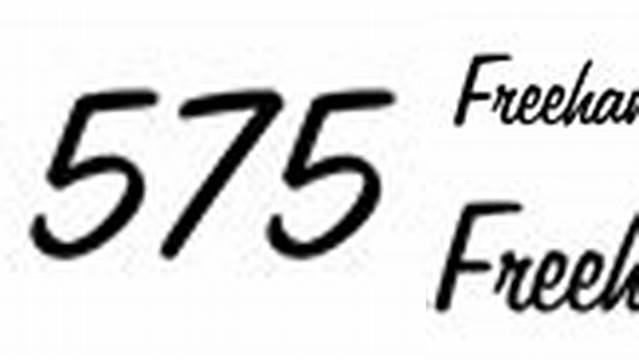
Hey design enthusiasts and font lovers! Today, we're diving deep into the world of Freehand 575 Std Regular, a font that brings a unique blend of casual elegance and professional polish to your projects. If you're on the hunt for a typeface that feels both handwritten and perfectly readable, you've come to the right place. This article is your ultimate guide to understanding, appreciating, and freehand 575 std regular font free download options, ensuring you can seamlessly integrate this versatile font into your creative toolkit.
Understanding the Appeal of Freehand 575 Std Regular
The allure of the Freehand 575 Std Regular font lies in its distinctive character. It's not just another digital font; it’s designed to mimic the fluid, organic strokes of handwriting, offering a personal touch that’s often missing in more rigid typefaces. This makes it incredibly effective for a wide range of applications, from branding and marketing materials to personal invitations and digital artwork. The 'Std' in its name typically refers to 'Standard', indicating a widely available and compatible version of the font, making it accessible for most users. The 'Regular' weight provides a balanced appearance, suitable for both headlines and body text, though its true strength shines when used for emphasis or to add a distinct personality to your designs. When you're looking for that perfect blend of approachability and sophistication, Freehand 575 Std Regular often hits the sweet spot. Its slightly irregular baseline and varied stroke widths give it an authentic, hand-drawn feel without sacrificing legibility. This is crucial, guys, because a font needs to look good and be easy to read. We'll explore how this font can elevate your designs and where you can find legitimate sources for your freehand 575 std regular font free download.
Exploring the Design Philosophy Behind Freehand 575 Std Regular
Every great font has a story, and the Freehand 575 Std Regular font is no exception. Its design philosophy seems rooted in capturing the spontaneity and warmth of human expression. Unlike sterile, geometric sans-serifs or overly ornate scripts, Freehand 575 Std Regular strikes a beautiful balance. It’s as if a skilled calligrapher took their time, not for perfect uniformity, but for expressive consistency. The subtle variations in stroke thickness, the gentle curves, and the slightly unpredictable angles all contribute to its handcrafted aesthetic. This intentional imperfection is what makes it feel so alive and engaging. For designers working on projects that require a personal, approachable vibe – think artisanal brands, wedding invitations, or children's books – this font is a goldmine. It communicates warmth, creativity, and a human element that resonates deeply with audiences. The designers likely aimed to create something that feels familiar yet unique, a typeface that could be used in a professional context without feeling cold or corporate. The ‘Std’ designation often implies adherence to certain typographic standards, ensuring better compatibility and rendering across different platforms and software. This means you can rely on its performance, whether you’re working in Adobe Photoshop, Illustrator, or even a simple word processor. When you’re searching for that perfect stylistic flourish, considering the underlying design principles of a font like Freehand 575 Std Regular can help you make the best choice for your specific needs. It’s about more than just aesthetics; it’s about conveying a message and an emotion through typography. This font is a testament to how thoughtful design can imbue digital characters with personality and soul. The focus is on achieving a look that is both distinctive and functional, a tricky balance that Freehand 575 Std Regular manages with aplomb, making it a valuable asset for anyone looking to add a touch of unique flair to their work. The essence of its appeal lies in this successful fusion of organic hand-drawn qualities with the reliability of a standard digital font, offering a creative solution that doesn't compromise on usability or aesthetic impact. The intentional quirks in its letterforms are precisely what give it character, preventing it from becoming just another generic typeface in a crowded digital landscape. It offers a nuanced expression that can elevate a design from ordinary to extraordinary, making it a go-to choice for many creative professionals seeking that special something.
The Versatility of Freehand 575 Std Regular in Design Projects
One of the most compelling aspects of the Freehand 575 Std Regular font is its sheer versatility. It’s not a font that confines itself to a single niche; rather, it adapts beautifully to a wide array of design scenarios. Are you designing a logo for a cozy coffee shop? Freehand 575 Std Regular can lend an inviting, artisanal feel. Need to create eye-catching headlines for a lifestyle blog? Its distinctive character will grab attention. Planning a wedding invitation suite that exudes romance and personal touch? This font is practically perfect. Even in more corporate settings, a judicious use of Freehand 575 Std Regular for specific call-outs or accents can inject a much-needed dose of personality and break the monotony of standard sans-serifs. Its readability in the regular weight makes it surprisingly suitable for shorter blocks of text, especially when aiming for a friendly, approachable tone. Think about packaging for handmade goods, event posters, or even short marketing copy where you want to connect with your audience on a more human level. The freehand 575 std regular font free download trend further amplifies its accessibility, allowing students, hobbyists, and small businesses to experiment with professional-grade typography without a hefty price tag. This democratization of design tools is fantastic, guys! It empowers more people to create visually appealing content. The subtle quirks of the font – the slight variations in baseline, the gentle swell in some strokes – prevent it from feeling sterile. It retains a handcrafted authenticity that’s highly sought after in today's design landscape, where brands are increasingly striving for genuine connection. Whether you're designing for print or digital media, Freehand 575 Std Regular offers a reliable and aesthetically pleasing option. Its ability to bridge the gap between casual handwriting and professional typography makes it a true workhorse font, capable of adding character and impact across diverse projects. It’s the kind of font that doesn’t just fill space; it actively contributes to the overall message and mood of your design, making it a powerful tool in any designer’s arsenal. The adaptability ensures that your creative vision remains consistent, regardless of the platform or medium. It's a font that works hard so your message can shine through with clarity and charm. This makes the freehand 575 std regular font free download an attractive proposition for anyone looking to enhance their design repertoire with a typeface that’s both stylish and functional, offering excellent value and creative potential without breaking the bank. It’s about making sophisticated design accessible and empowering users to achieve professional results with ease. The font's inherent charm and readability ensure it performs well in numerous contexts, solidifying its status as a highly valuable asset for designers and creatives across various industries. It provides a unique stylistic signature that can help a brand or project stand out from the crowd, offering a distinct visual identity that is both memorable and engaging.
Incorporating Freehand 575 Std Regular into Your Designs
Once you've successfully acquired your Freehand 575 Std Regular font, the real fun begins: integrating it into your design projects! This font's unique character makes it stand out, but using it effectively requires a bit of thought. Start by considering where its strengths lie. As mentioned, it excels in adding personality and a human touch. Use it for headlines, subheadings, pull quotes, or short, impactful statements where you want to convey warmth, creativity, or a sense of craft. For body text, the regular weight is generally readable, but for longer passages, you might find a more conventional sans-serif or serif font easier on the eyes. Experiment with pairing Freehand 575 Std Regular with other typefaces. A clean, minimalist sans-serif can provide a nice contrast, grounding the font's expressive nature. Alternatively, pairing it with a classic serif font can create a sophisticated yet approachable feel. Think about the overall mood you want to achieve. If your project demands a friendly, informal vibe, lean into Freehand 575 Std Regular. If it needs to feel more formal, use it sparingly as an accent. Don't be afraid to play with sizing and color. Larger sizes will emphasize its unique letterforms, while careful color choices can enhance its readability and aesthetic appeal. Remember that consistency is key, especially in branding. Once you decide on how to use Freehand 575 Std Regular, stick to it across your various materials. The goal is to make your designs not just look good, but also communicate effectively. The freehand 575 std regular font free download gives you the freedom to experiment, so dive in and see what amazing things you can create! The font’s subtle irregularities are its superpower; they give text life and prevent it from feeling like generic digital output. Use this to your advantage to create designs that feel authentic and engaging. It’s about leveraging its handcrafted feel to build a stronger connection with your audience, making your message more memorable and impactful. The key is thoughtful application, ensuring the font serves the overall design goal rather than overpowering it. Master this balance, and Freehand 575 Std Regular becomes an indispensable part of your creative arsenal.
Typography Pairing Strategies with Freehand 575 Std Regular
Pairing fonts can be tricky, guys, but it's where the magic happens! When working with Freehand 575 Std Regular, your goal is usually to complement its distinctive, slightly irregular style without overwhelming it or creating a visual clash. A great strategy is to pair it with a clean, neutral sans-serif font. Think of fonts like Open Sans, Lato, or Montserrat. These provide a stable, readable base for body text or secondary information, allowing Freehand 575 Std Regular to shine in headlines or key phrases. The contrast between the expressive, hand-drawn feel of Freehand and the geometric simplicity of a neutral sans-serif creates a dynamic and visually interesting composition. Another effective approach is to pair it with a classic serif font. This combination can lend an air of sophistication and tradition, juxtaposed with the casual warmth of Freehand. Imagine using Freehand 575 Std Regular for a wedding invitation's main headings and a timeless serif like Garamond or Times New Roman for the invitation details. This pairing works because the serif adds a layer of formality and readability, while Freehand brings the personal, celebratory touch. Avoid pairing Freehand 575 Std Regular with other highly decorative or script fonts, as this can lead to a cluttered and confusing design. The key is contrast and hierarchy. Let Freehand 575 Std Regular be the star of the show for certain elements, and use its counterpart to support and enhance readability. When downloading your freehand 575 std regular font free download, consider the types of projects you’ll use it for most. This will help guide your pairing choices. For instance, if you're designing for a modern, minimalist brand, pair it with a sleek, geometric sans-serif. If you're aiming for a rustic, organic feel, perhaps a subtle slab serif could work. The possibilities are vast, but the principle remains: create harmony through contrast. This thoughtful combination ensures that your typography not only looks good but also effectively communicates your intended message and brand personality. It's about building a typographic ecosystem where each font has a role and contributes to the overall aesthetic and readability of your design work, making sure the final output is both beautiful and functional for the intended audience. It provides a balanced visual narrative that guides the reader's eye and enhances the overall user experience. Careful consideration of these pairings ensures the font's unique charm is highlighted without compromising the clarity of the message being conveyed to the audience, solidifying its role as a versatile design element.
Creative Applications Beyond the Obvious
We've talked a lot about headlines, logos, and invitations, but the Freehand 575 Std Regular font offers potential for even more creative applications. Think outside the box! Its friendly, approachable vibe makes it perfect for educational materials or children's books, where a sense of fun and warmth is essential. Imagine using it for interactive elements on a website – buttons, tooltips, or call-to-action prompts that need to feel inviting and less corporate. It could also be fantastic for crafting digital scrapbooking elements or journaling prompts, adding a personal, scrapbook-like feel to digital creations. For game developers, Freehand 575 Std Regular might be suitable for in-game text that requires a bit of personality, like character dialogue boxes in a casual game or signage within a whimsical game world. Its slightly irregular appearance can even be used to simulate a distressed or vintage look when paired with the right textures and effects. Consider using it in motion graphics – animated text can take on a dynamic, lively quality with this font. The key is to leverage its inherent characteristics – the fluidity, the slight imperfections – to enhance the message or mood. Don't just use it because it's available via a freehand 575 std regular font free download; use it because its specific style serves a purpose in your creative vision. Explore its potential in areas you might not have initially considered. Perhaps it could be the perfect font for a podcast's visual branding, or for designing unique social media graphics that need to stand out from the endless scroll. The more you experiment, the more you'll discover the hidden talents of this versatile typeface. It's all about pushing creative boundaries and finding new ways to express ideas through typography. This font is more than just letters; it's a tool for storytelling and connection, ready to be employed in countless imaginative ways to bring your unique projects to life with distinctive flair and personality. Remember that its charm lies in its individuality, making it a perfect candidate for applications where a unique voice is desired, thereby adding significant value beyond conventional uses.